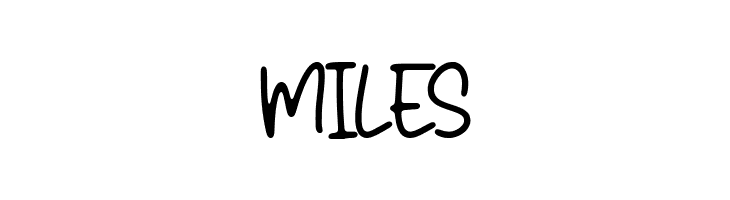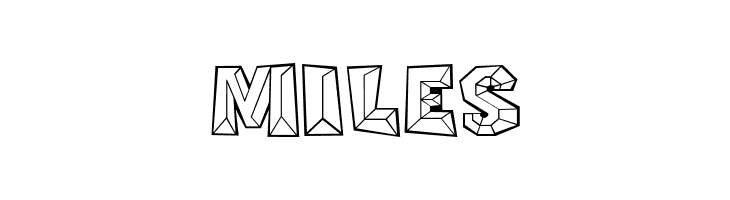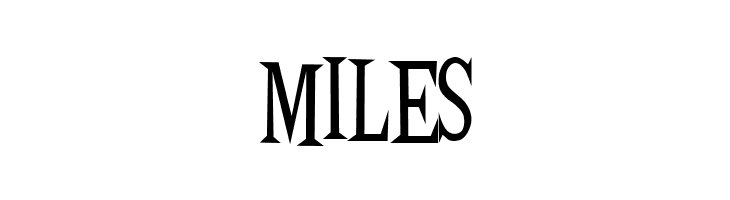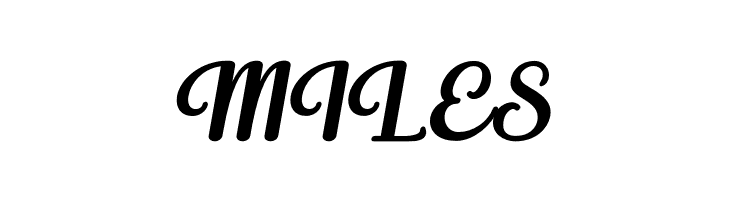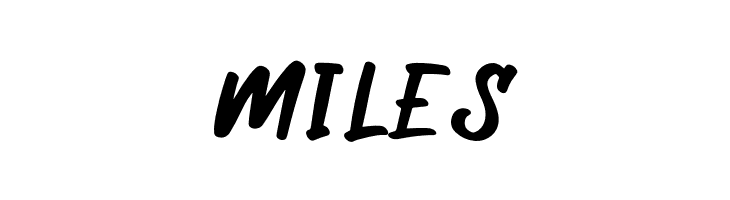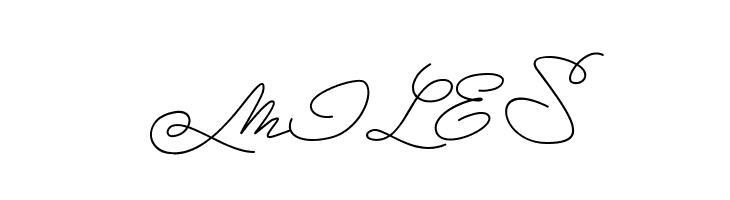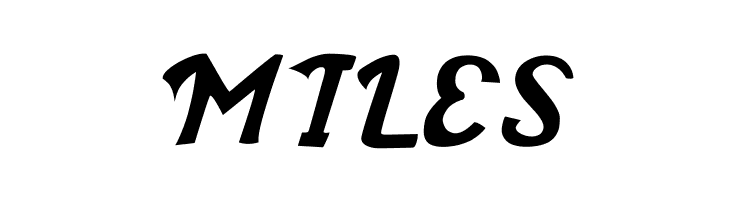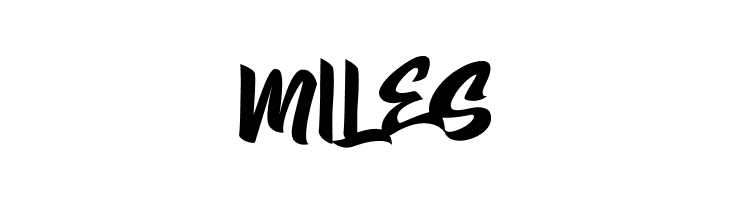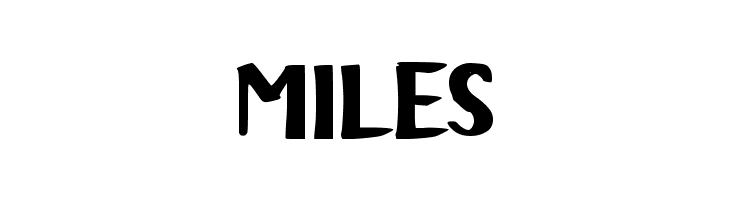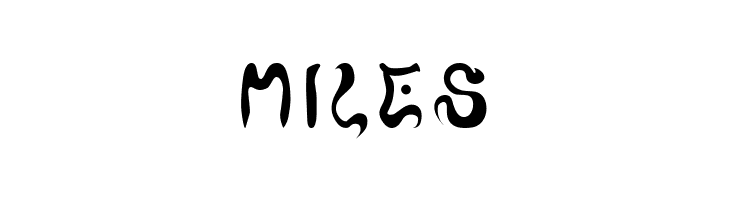
A bold, handwritten-style font with a playful and dynamic appearance.
A classic script font with elegant, flowing cursive letters.
A playful, bold font with a hand-drawn, informal style.
A bold, dynamic script font with a fluid, connected style.
A bold, gothic-inspired font with sharp, angular lines and a strong presence.
A bold, expressive handwritten font with thick, flowing strokes.
A playful, casual handwritten font with smooth, rounded edges.
A playful and whimsical font with dynamic strokes and quirky curls.
A modern serif font with elegant curves and decorative elements.
A classic serif font with tall, elegant letterforms and high contrast strokes.
A modern, elegant font with clean lines and slight stroke contrast.
A clean, elegant font with modern aesthetics and subtle stroke contrast.
A playful, handwritten-style font with bold, rounded characters.
An angular, edgy font with a hand-drawn, dynamic style.
A flowing cursive font with elegant curves and loops.
A graceful script font with flowing cursive letters and intricate swashes.
A bold, playful script font with thick, flowing strokes and rounded edges.
A bold, textured, and playful hand-drawn font with a unique and informal style.
A geometric, three-dimensional font with a faceted, crystal-like design.
Decorative swashes and flourishes with intricate, elegant lines.
A lively handwritten font with fluid, cursive strokes and playful loops.
A bold, modern font with Gothic influences and high contrast strokes.
A playful, handwritten font with fluid strokes and a casual vibe.
A bold serif font with high contrast and elegant curves.
A playful, cartoon-like font with geometric shapes and whimsical characters.
A playful handwritten font with smooth curves and a casual style.
A playful, bold handwritten font with rounded edges and a casual style.
A playful 3D outline font with rounded, inflated letters.
A bold, 3D italic font with a playful and dynamic style.
A bold, playful font with rounded, hand-drawn characters.
A bold, italicized font with a playful and dynamic style.
A playful, bold, and hand-drawn font with rounded edges and a condensed style.
A bold, condensed, and italicized font with a dynamic and energetic style.